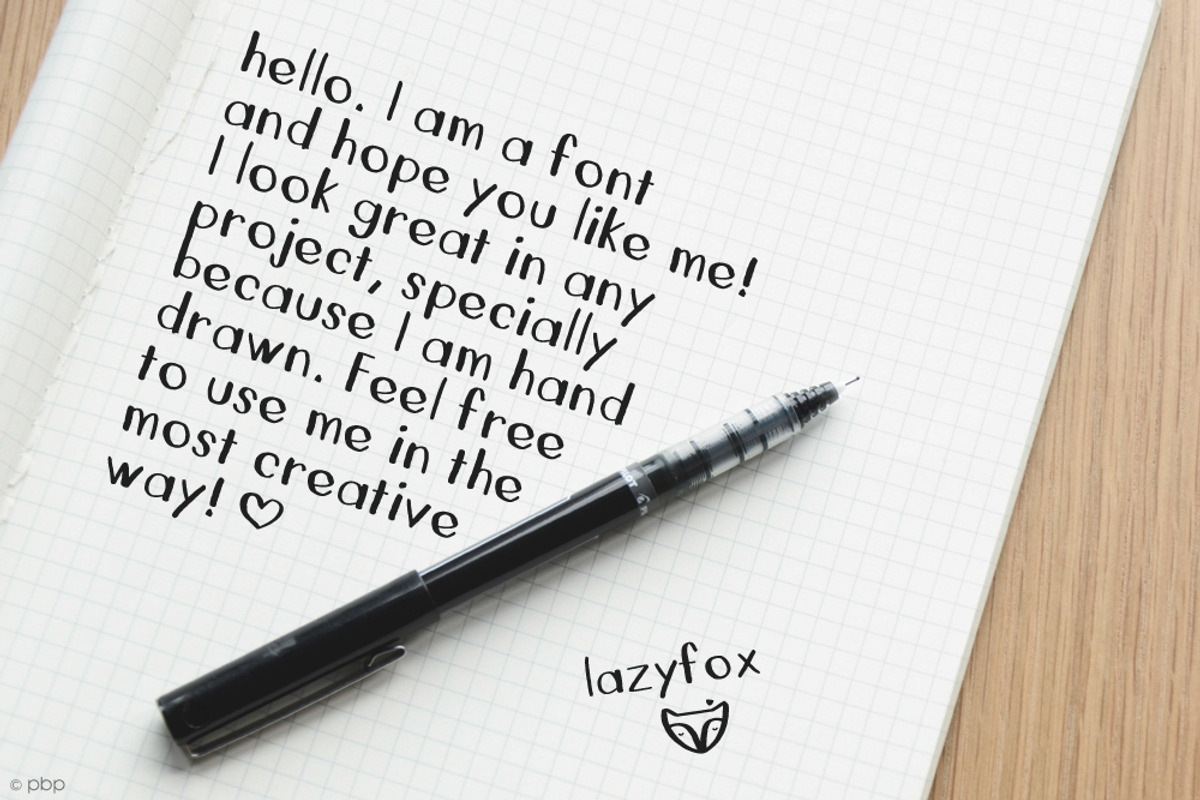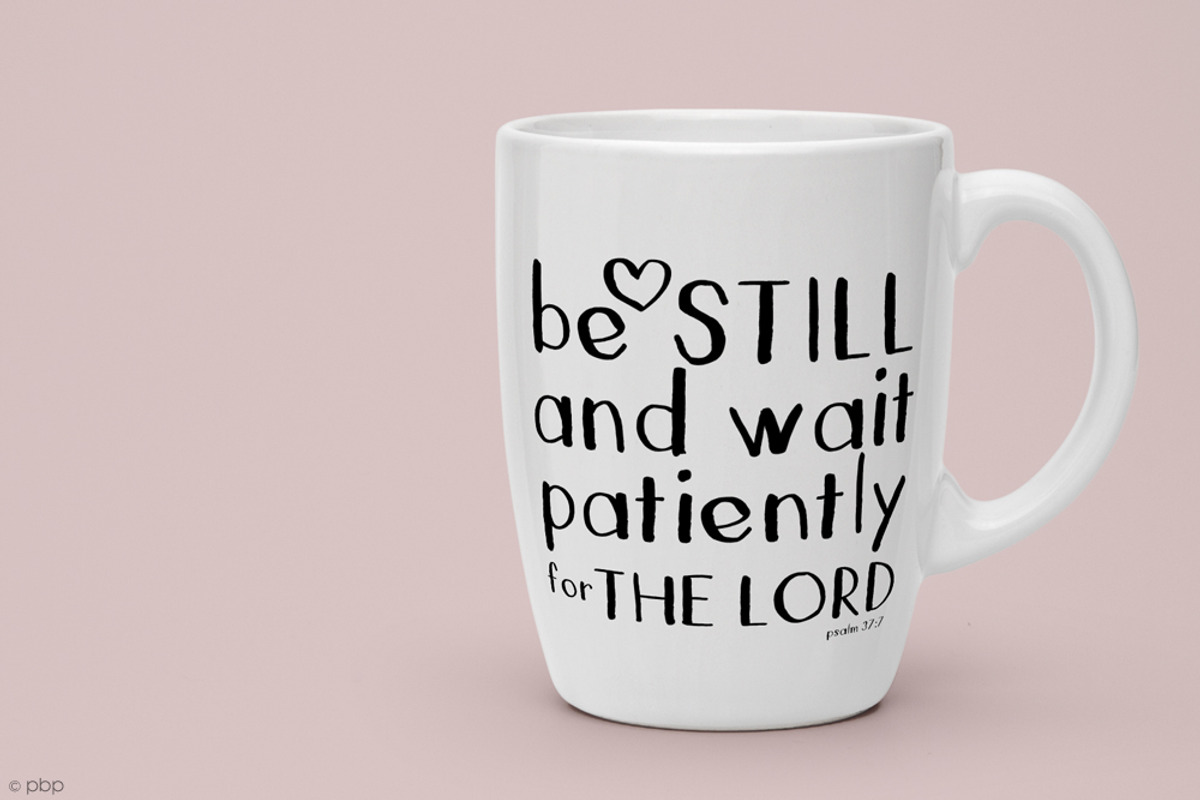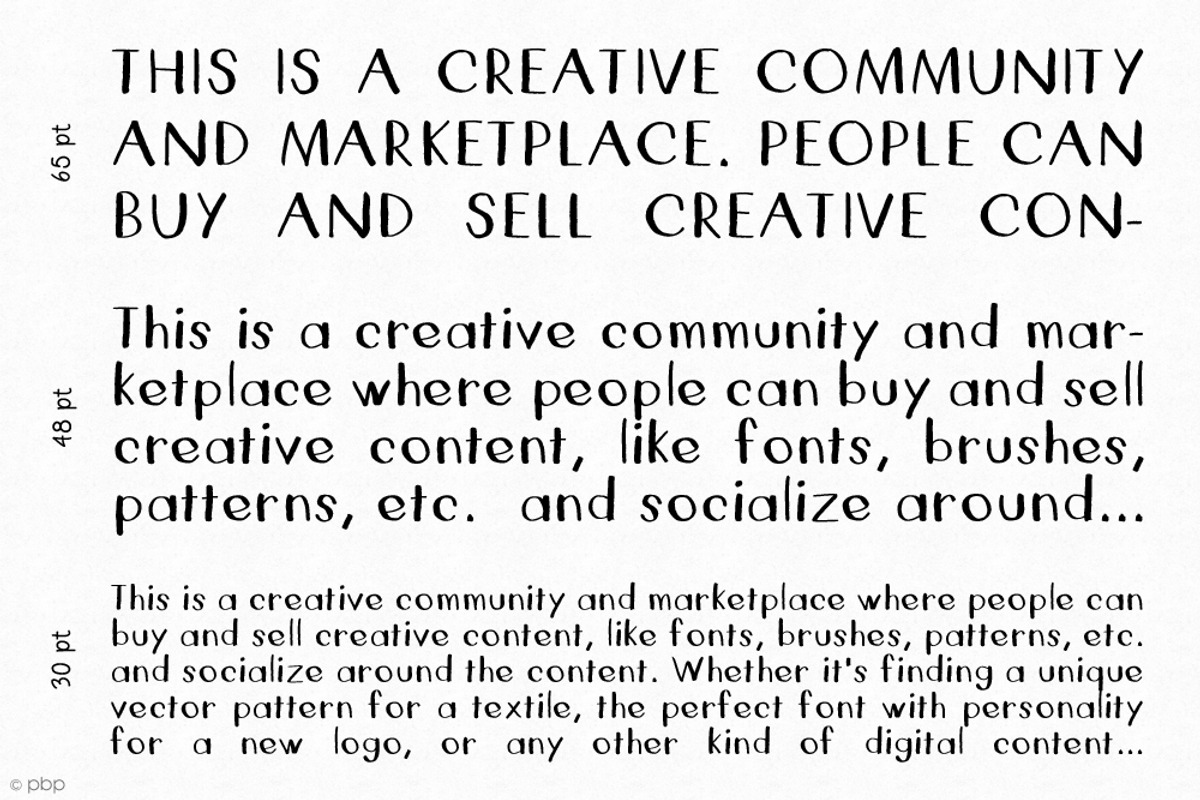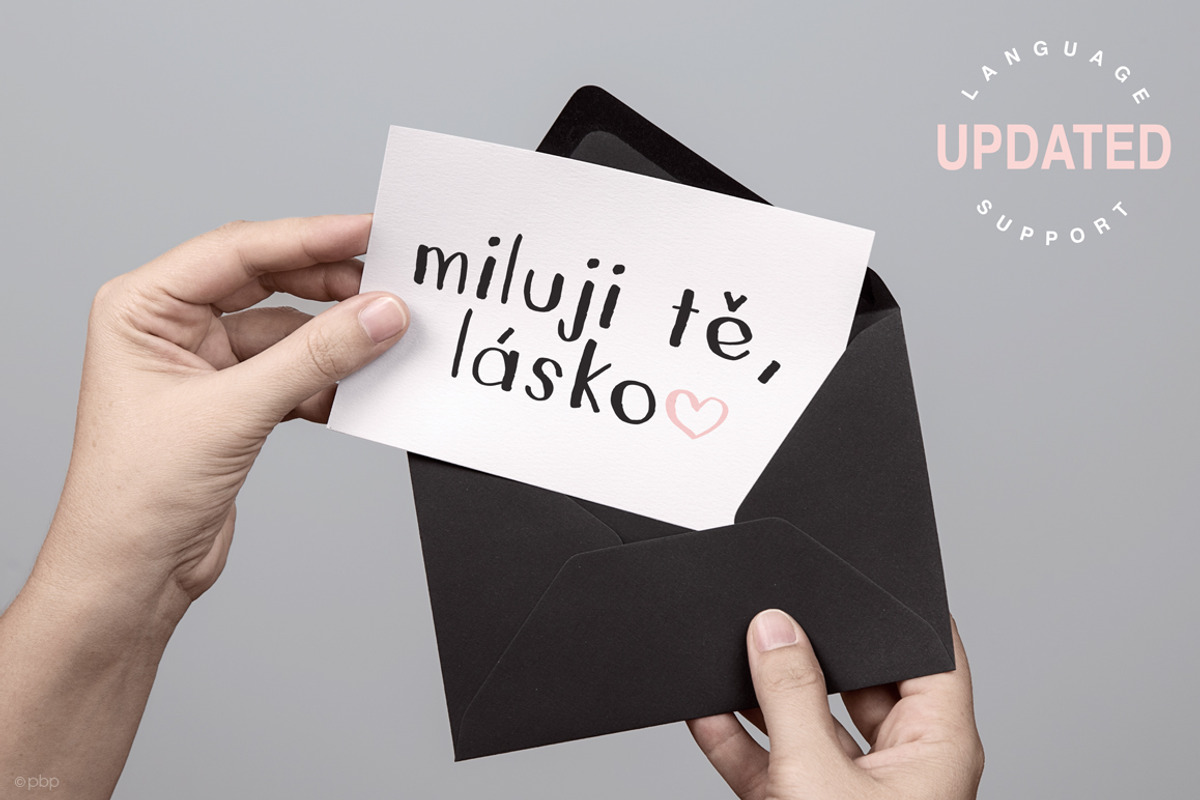
LazyFox Hand Drawn Font
LazyFox Hand Drawn Font by pixelcolours is a font selected for branding, posters, packaging, typography.
Why LazyFox Hand Drawn Font is worth a look
LazyFox Hand Drawn Font by pixelcolours fits naturally into Branding, posters, packaging, typography.